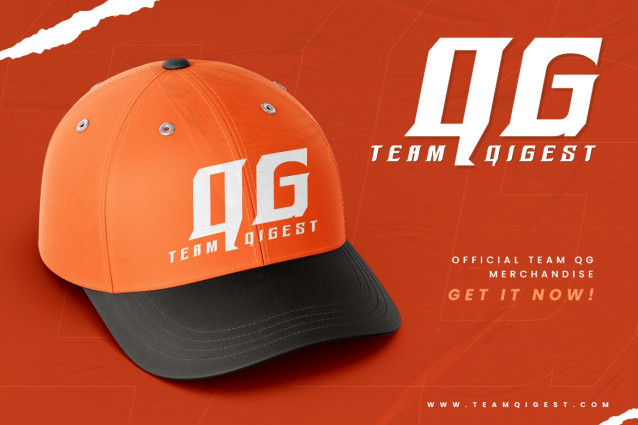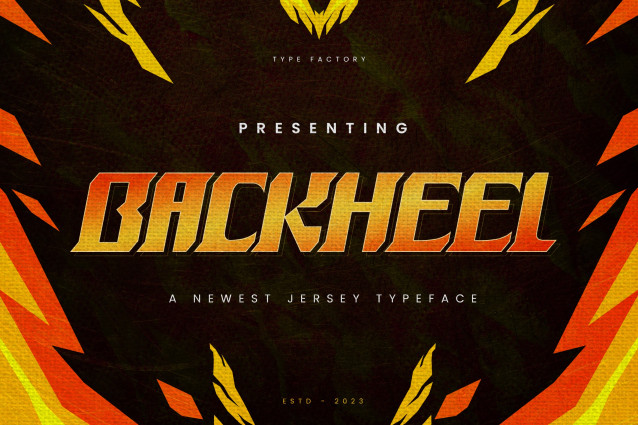
Backheel Font
Backheel Font is the newest jersey typeface crafted for bold, high-impact sports design. With its strong structure, clean lines, and sporty aesthetic, Backheel is ideal for team uniforms, jersey numbers, logos, sports event posters, and fan merchandise. Its versatile display style ensures readability and visual strength, making it a top choice for athletic branding. Whether you’re designing for football, basketball, or esports, Backheel brings speed, energy, and competitive edge to your typography.